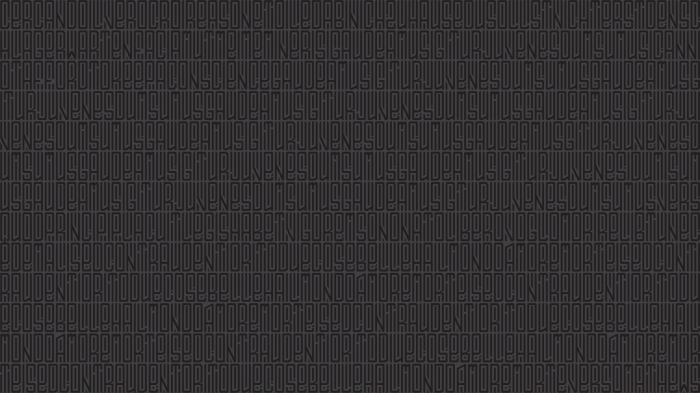
Congratulations on the TP :) Is this your first font? I like how you filled the space in/around the letters to create tall 'box' shapes that manage to stay open due to the 'gaps'.